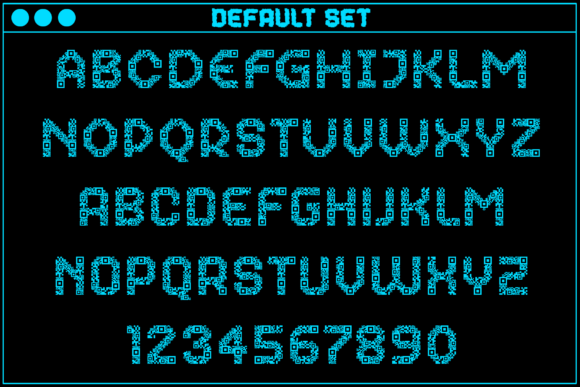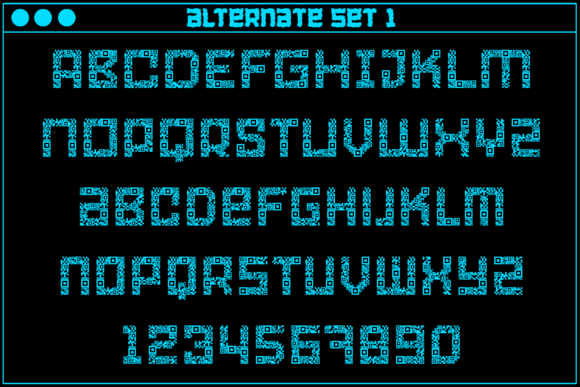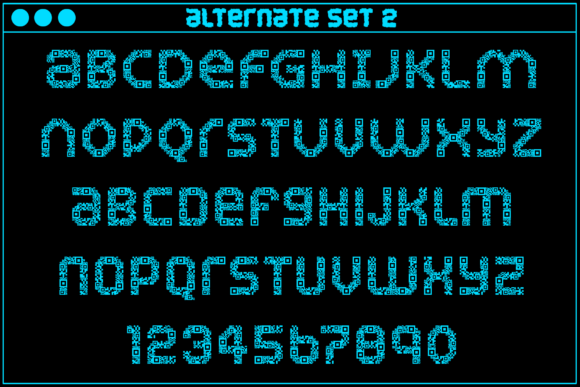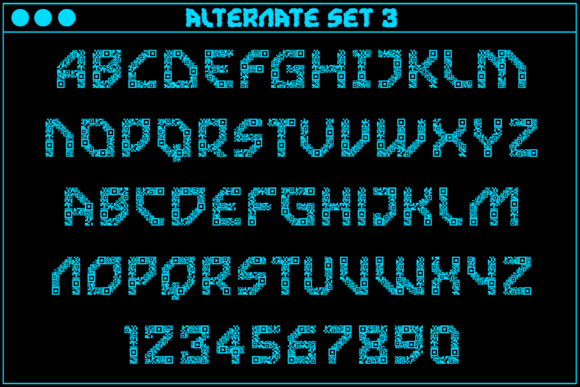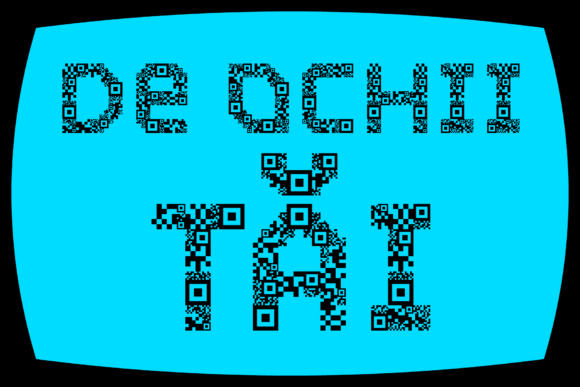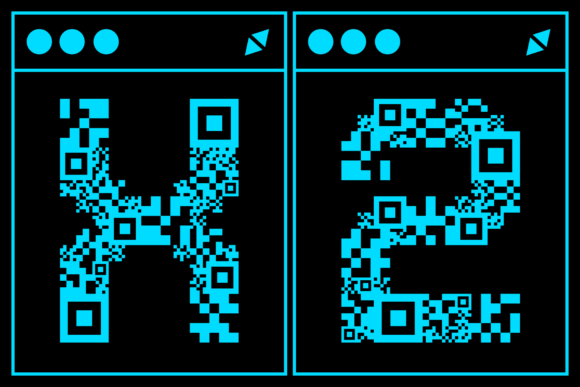
Introduction to MultiType Glitch QR Code Font
Have you ever been stuck in a design rut, scrolling through your favorite design inspiration boards, and then BAM! You stumble upon that one font that just makes your creative project come alive? For me, that font was the MultiType Glitch QR Code Font. Its unique, pixelated design added a quirky touch to my latest project, and I couldn’t wait to share it with the world.
As designers, we’re always on the lookout for that special something that sets our designs apart from the rest. And let me tell you, the MultiType Glitch QR Code Font delivers. With its high-quality, PUA-encoded design, you can easily access all glyphs and swashes, making it a valuable resource for any creative project. Whether you’re working on a personal project or a commercial design, this font is sure to add a trendy, distorted touch that’s perfect for a transparent background or any other design element.
Key Features of MultiType Glitch QR Code Font
- High-quality design: The MultiType Glitch QR Code Font is designed to provide a unique and visually appealing element for creative projects.
- Transparent background: This font allows for a seamless integration into various design elements, making it easy to use in creative projects.
- Perfect for creative projects: The MultiType Glitch QR Code Font is ideal for use in creative projects, such as graphic design, digital art, and typography-based designs.
- Resolution: The font is designed to be high-resolution, making it suitable for use in large-scale designs and print materials.
- Unique glitch effect: The MultiType Glitch QR Code Font features a unique glitch effect that adds an extra layer of visual interest to any design.
Honest Review: MultiType Glitch QR Code Font
As a designer, I’m always on the lookout for unique and creative design resources that can elevate my projects. The MultiType Glitch QR Code Font is one such resource that caught my attention.
- High-quality design: The font is well-designed and looks great, even with a transparent background.
I’ve used the MultiType Glitch QR Code Font for a few creative projects, and it’s been a game-changer. The font adds a unique touch to my designs and helps them stand out.
- Limited customization options: While the font is great, it’s not customizable, which can be a limitation for some designers.
- May not be suitable for all projects: The font’s glitchy design may not be suitable for all types of projects, such as corporate or traditional designs.
Overall, I’m impressed with the MultiType Glitch QR Code Font. It’s a great resource for designers who want to add a unique touch to their creative projects. With a few limitations, it’s still a valuable addition to any design library.